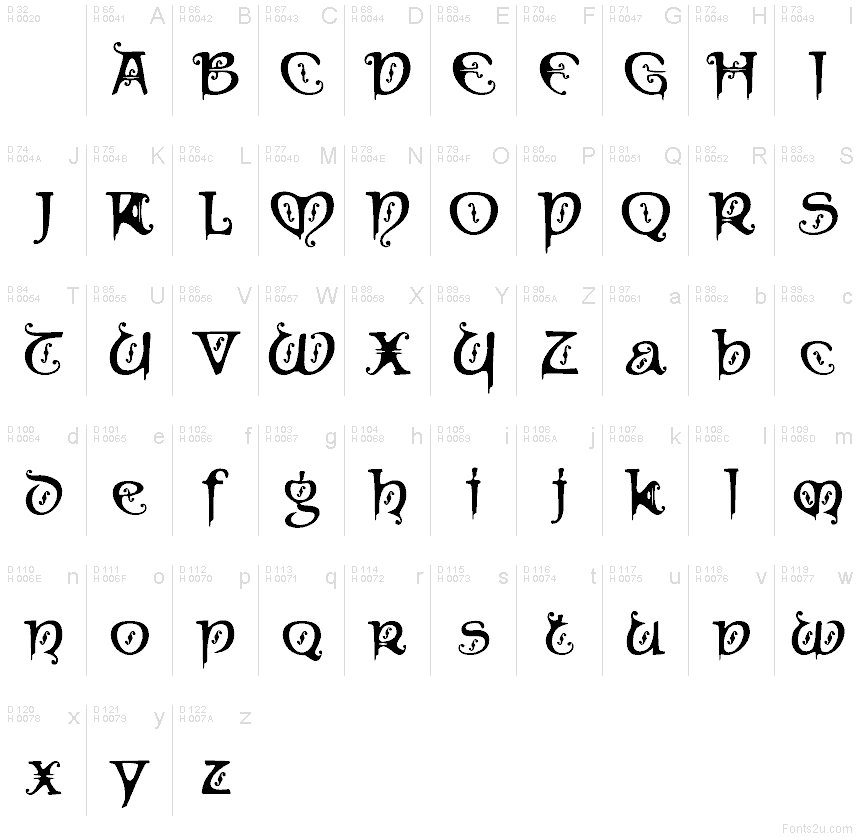
CSVeraDrawn-Regular Demo
CS Vera Drawn font by Craft Supply Co. is inspired by Celtic calligraphy styles with beautiful decorative details. The gothic style font contains luscious curves that are complemented by the existing sharp lines and various strokes. These are also inspired by Victorian fonts style where elegance and charm come first.
This free calligraphy font is apt for branding, poster designs, packaging designs, typography quotes, magazine covers, book layouts, and other printed materials. The gothic nature of the font makes it even more suitable for churches and old historical projects.